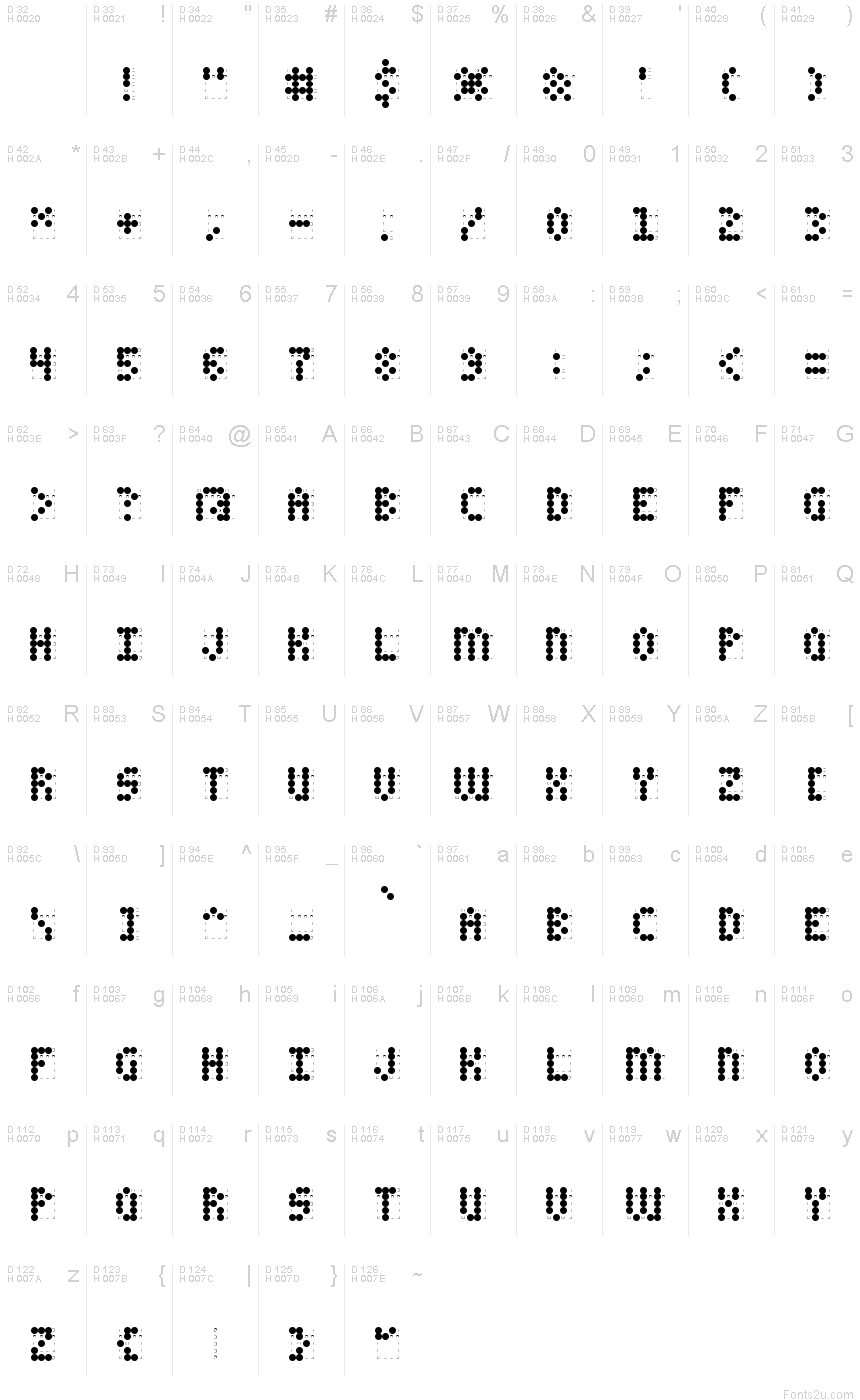
Charaille AOE
Charaille AOE font by Astigmatic is a free digital display typeface that looks like it’s been punched out of a glowing LED sign. Built from tight grids of bold black dots and hollow circles, it instantly recalls retro scoreboards, arcade cabinets, and scrolling station boards. The rhythm of the dots gives words a pulsing, animated feel even on a static page, making short phrases hit with graphic intensity.
Using Charaille AOE, you can give game interfaces, sci‑fi posters, club flyers, event tickets, tech branding, and experimental album art a distinctly electronic voice. This free font shines at larger sizes where the dot pattern is crisp and tactile; pair it with a clean geometric sans for body copy to keep layouts readable while Charaille AOE delivers the neon‑sign drama.